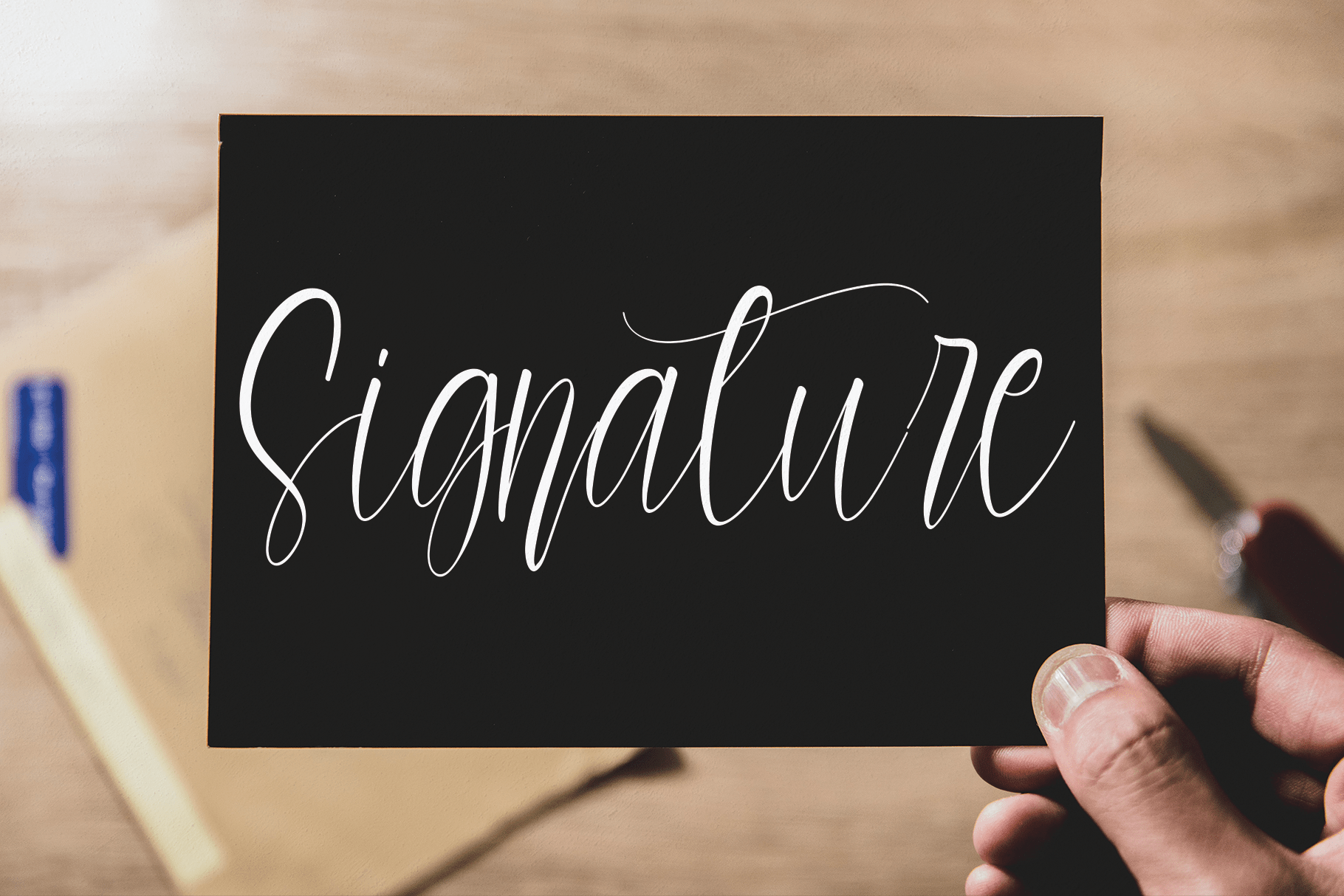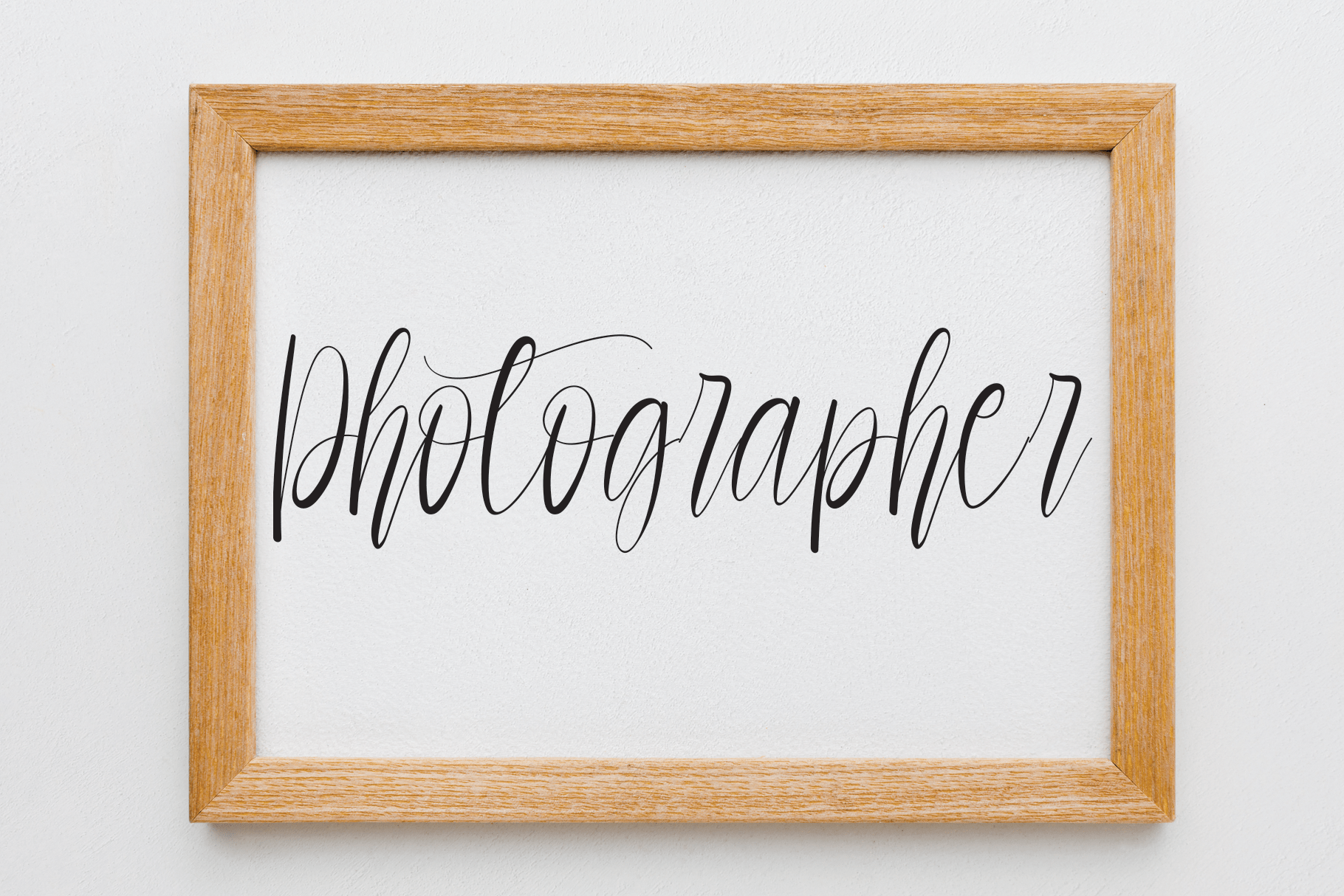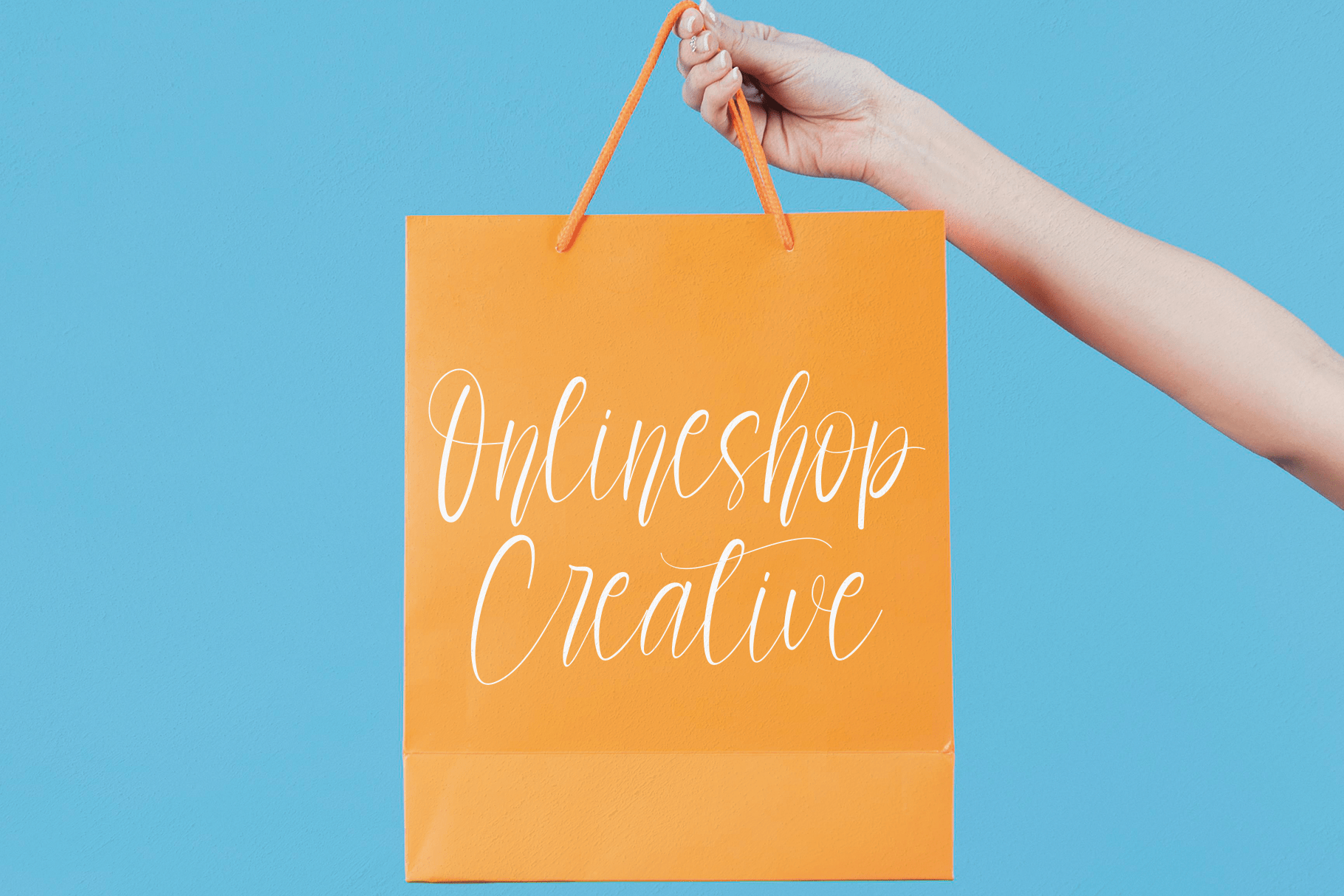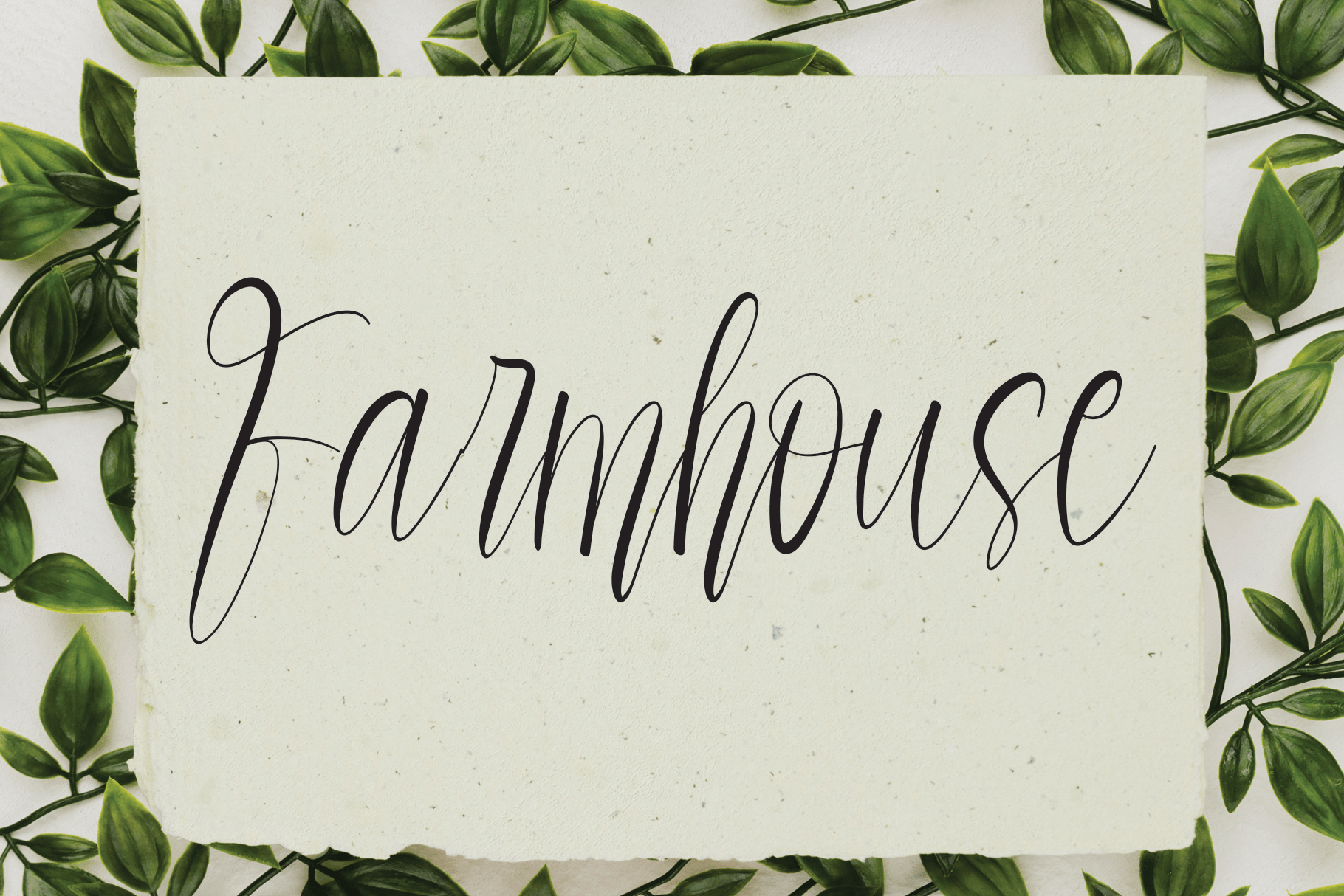
Baby Vintage Script Font
This is a lovely, stylish and fashionable script font. Dainty and joyful, this font will be ideal for writing wedding invitations, cards or any other design that may need a romantic, personalized touch!